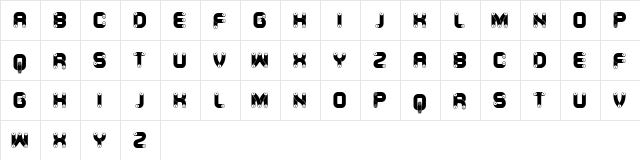
Canal Brighter Regular
Design Context for Canal Brighter Typeface
Canal Brighter is a composed and adaptable typeface that performs quietly and consistently across a wide range of design contexts.